This topic describes color fonts, their support in DirectWrite and Direct2D (and some other frameworks), and how to use them in your app.
What are color fonts?
By default, a glyph has a shape but no intrinsic color. Both DirectWrite and Direct2D have DrawGlyphRun methods that render glyph runs by filling the glyph shapes with a specified text color. For convenience, we'll refer to that as monochrome glyph rendering. All fonts have monochrome glyphs. A color font, on the other hand, also has color representations of some glyphs. And to render glyphs in color, your app must use different glyph-rendering APIs (as we'll discuss), instead of calling the monochrome DrawGlyphRun methods.
Color fonts are also referred to as multicolored fonts or chromatic fonts. They're a font technology that allows font designers to use multiple colors within each glyph. Color fonts enable multicolored text scenarios in apps and websites with less code and more robust operating system support than ad-hoc techniques implemented above the text rendering system.
The fonts that most of us are familiar with are not color fonts. Such fonts define only the shape of the glyphs that they contain; either with vector outlines or monochromatic bitmaps. At draw time, a text renderer fills the glyph shape using a single color (the font color) specified by the app or document being rendered. Color fonts, on the other hand, contain color information in addition to shape information. Some approaches allow font designers to offer multiple color palettes, giving the color font artistic flexibility.
Here's a glyph from the Segoe UI Emoji color font. The glyph is rendered in monochrome on the left, and in color on the right.
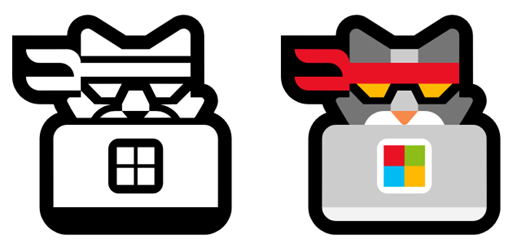
Color fonts typically include fallback information for platforms that don't support them, or for scenarios in which color functionality has been disabled. On those platforms, color fonts are rendered as regular monochromatic fonts.
Because color font support is implemented at the glyph rendering level, it doesn't affect text layout. And that's true whether you use the IDWriteTextLayout interface, or whether you implement your own text layout algorithm. The mapping of characters to glyphs, and the positioning of those glyphs, all use monochrome glyph IDs and their associated metrics. The output of the text layout process is a sequence of monochrome glyph runs. And then color font support can be enabled by translating those monochrome base glyph runs to color glyphs runs at rendering time.
Why use color fonts?
Historically, designers and developers have used a variety of techniques to achieve multicolored text. For example, websites often use raster images instead of text in order to display rich headers. That approach enables artistic flexibility, but raster graphics don't scale well to all display sizes, and nor do they provide the same accessibility features as real text. Another common technique is to overlay multiple monochromatic fonts in different font colors; but that typically requires extra layout code to manage.
Color fonts offer a way to achieve those visual effects with all the simplicity and functionality of regular fonts. Text rendered in a color font is the same as other text: it can be copied and pasted, it can be parsed by accessibility tools, and so on.
What kinds of color fonts does Windows support?
The OpenType specification defines several ways to embed color information in a font. Starting in Windows 10, version 1607 (Anniversary Update), DirectWrite and Direct2D (and the Windows frameworks built on them) support all of these approaches:
| Technique | Description |
| COLR/CPAL tables | Uses layers of colored vectors, whose shapes are defined in the same way as single-color glyph outlines. Support started in Windows 8.1. |
| SVG table | Uses vector images authored in the Scalable Vector Graphics (SVG) format. As of Windows 10, version 1607 (Anniversary Update), DirectWrite supports a subset of the full SVG spec. Not all SVG content is guaranteed to render in an OpenType SVG font. For more details, see SVG support. |
| CBDT/CBLC tables | Uses embedded color bitmap images. |
| sbix table | Uses embedded color bitmap images. |
Using color fonts
From the user's perspective, color fonts are just fonts. For example, they can usually be installed and uninstalled from the system in the same way as monochromatic fonts can; and they're rendered as regular, selectable text.
From the developer's perspective too, color fonts are usually used the same way as monochromatic fonts are. In the XAML and Microsoft Edge frameworks, you can style your text with color fonts the same way you can with regular fonts, and by default your text will be rendered in color. However, if your app directly calls Direct2D APIs (or Win2D APIs) to render text, then it must explicitly request color font rendering.